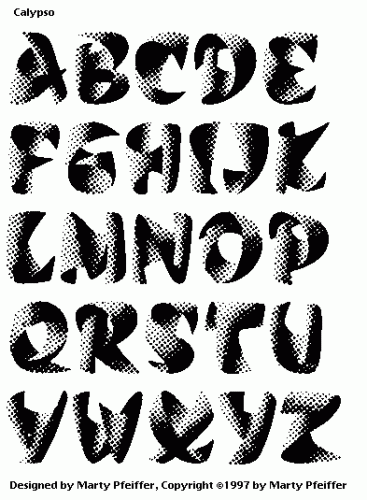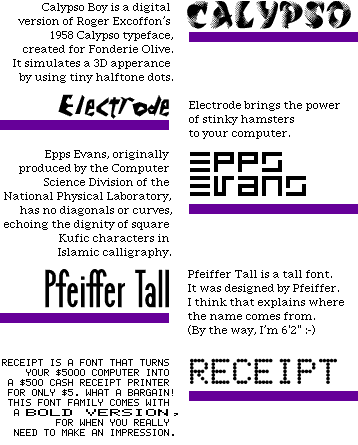
Calypso Boy is a digital version of Roger Excoffon’s 1958 Calypso, created for Fonderie Olive. The font simulates a 3-D appearance by using tiny halftone dots.
I had the pleasure of creating every single halftone dot using Fontographer :-). Quite a bit of work, but I think that the end result is worth it.